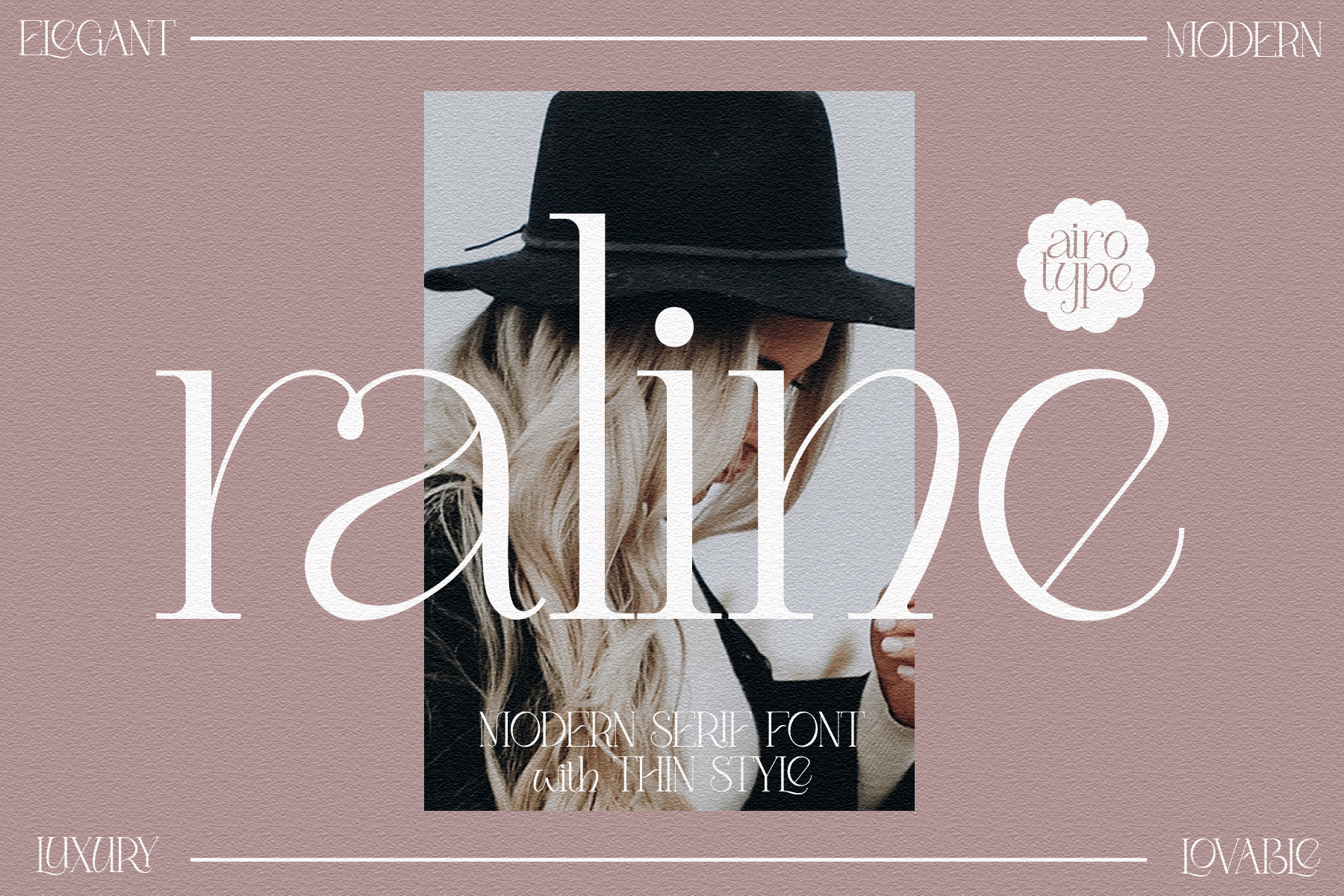
Raline - Classy Modern Serif Font
Raline is modern serif font with elegance and classiness touch. It has thin stroke and few ligatures. It can be modern vintage serif in the same time.
Raline Font is so suitable for your logo, wedding invitation, greeting card, branding, fashion, short quotes, and many more.
- All caps
- Some ligatures (AA,AE,AF,AH,DO,EA,EE,EF,EH,FA,FE,FF,FH,HA,HE,HF,HH,IT,KA,KE,KI,KIT,KITT,KO,KS,KT,KU,KY,LA,LE,LI,LIT,LITT,LL,LO,LS,LT,LU,LY,OC,OO,RA,RE,RI,RIT,RITT,RO,RS,RT,RU,RY,TT,ab,af,aff,afi,afl,ah,ai,al,am,all,an,ap,ar,ara,at,au,ari,att,av,aw,avi,awi,ch,cr,cra,eb,ee,ef,eh,ek,el,em,en,ep,er,et,ev,ew,ey,era,eeb,eef,eek,eel,eem,een,eer,eet,eev,gi,oo,ra,ri,tt,vi,wi,ak,ett,ff,fi,fl)